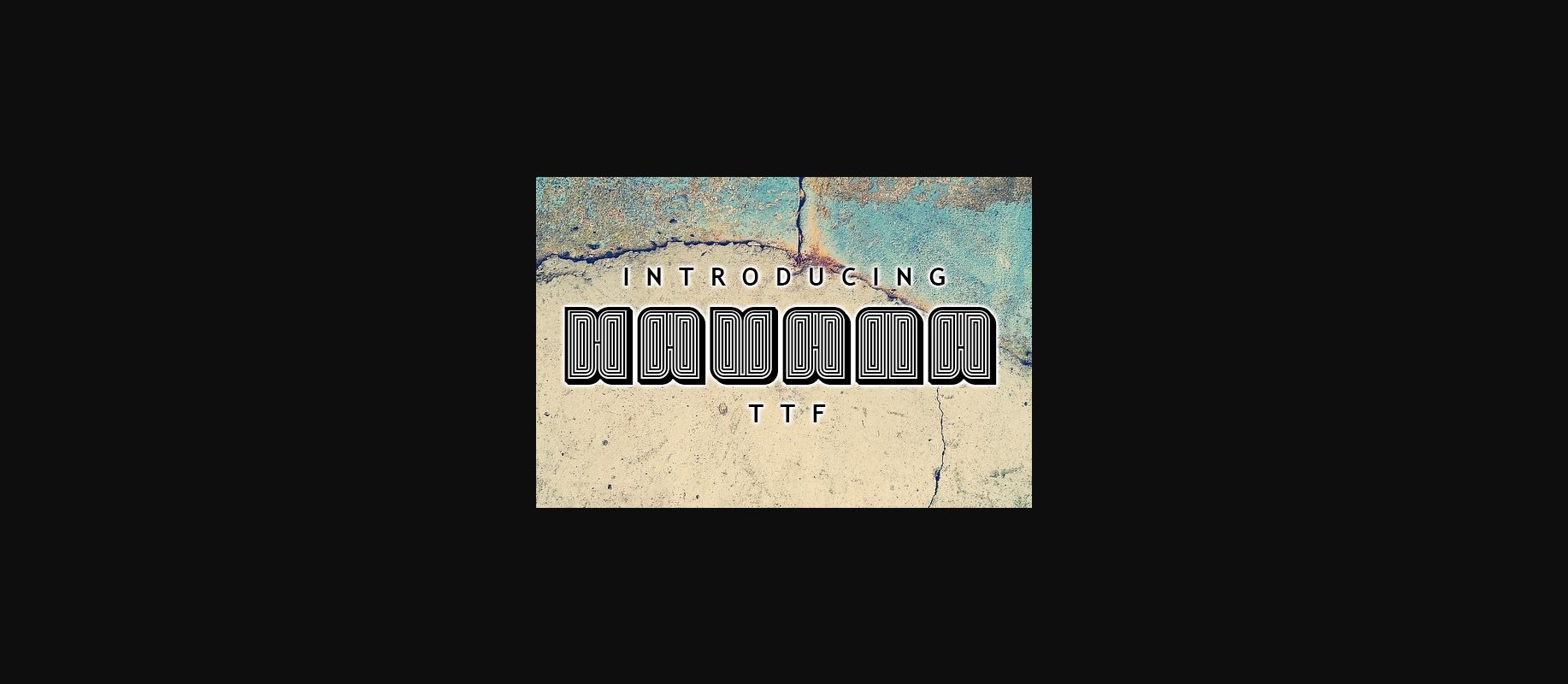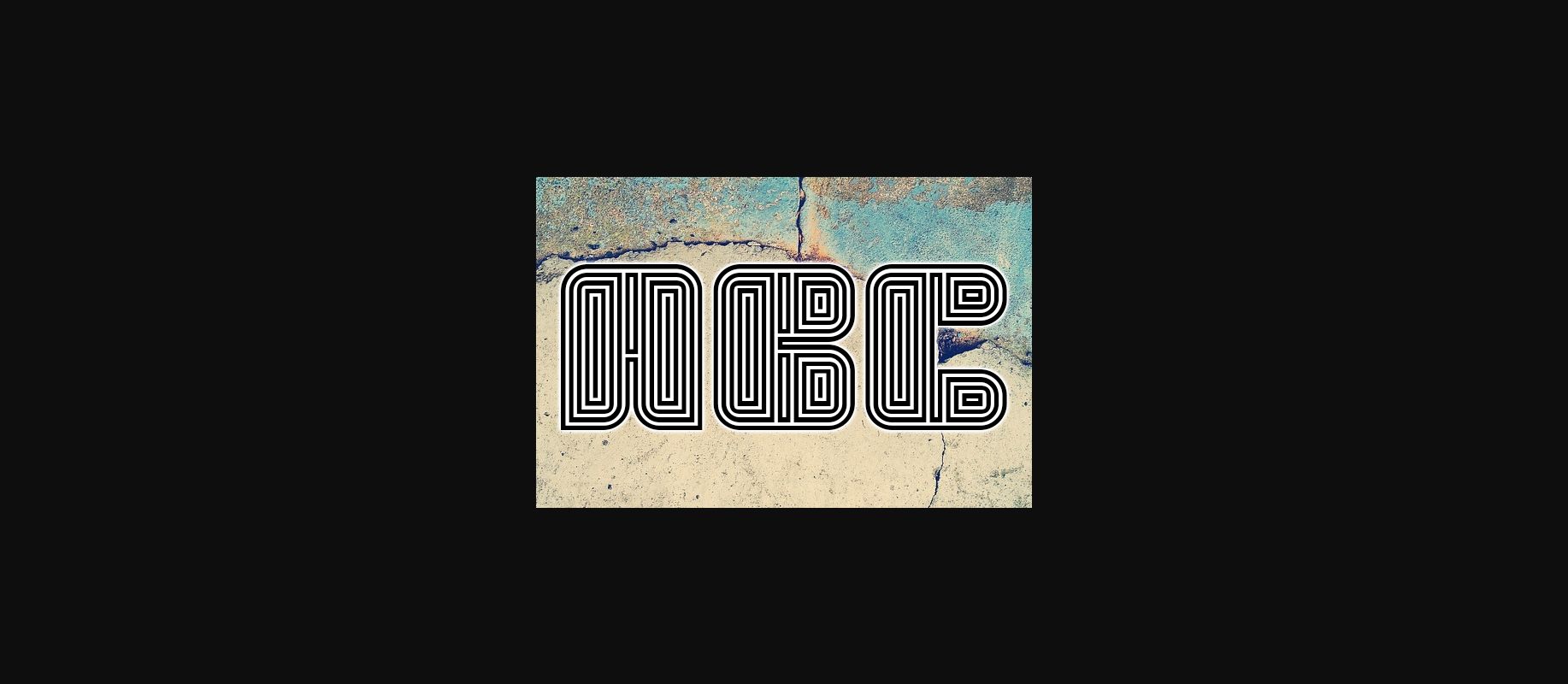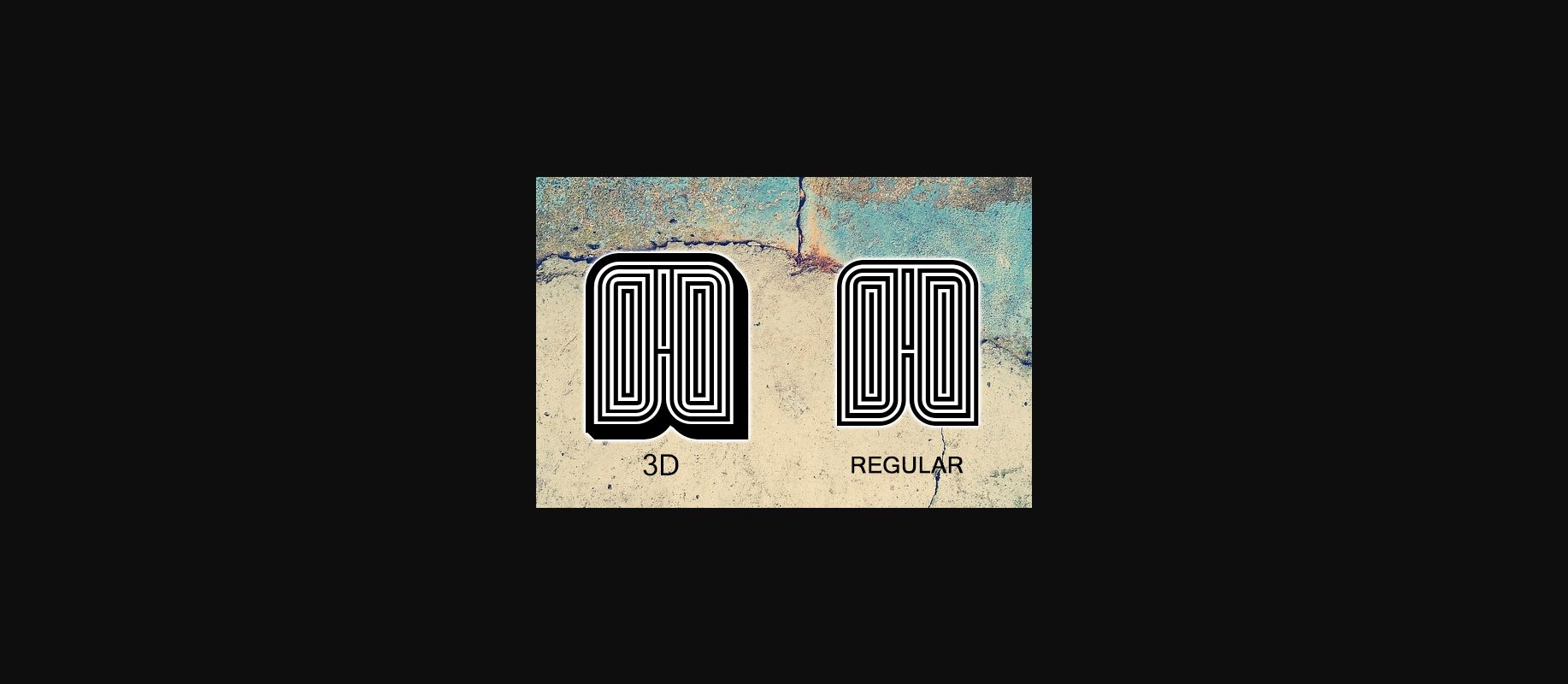
About Havana Font
Havana is a cool and incredibly unique decorative font. This font would be ideal for writing web designs, business cards, or pretty much anything else that requires a futuristic touch.